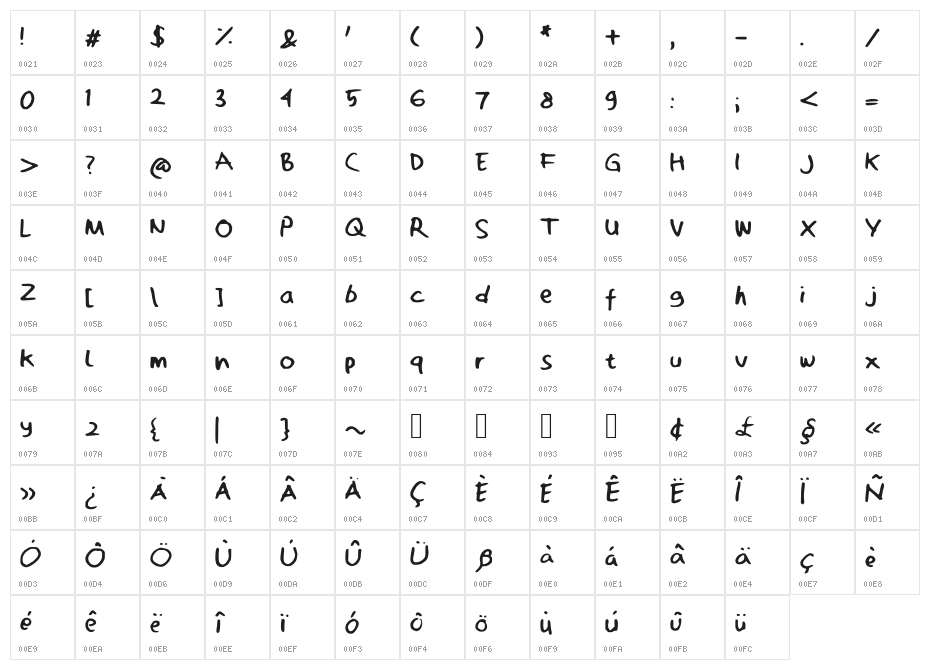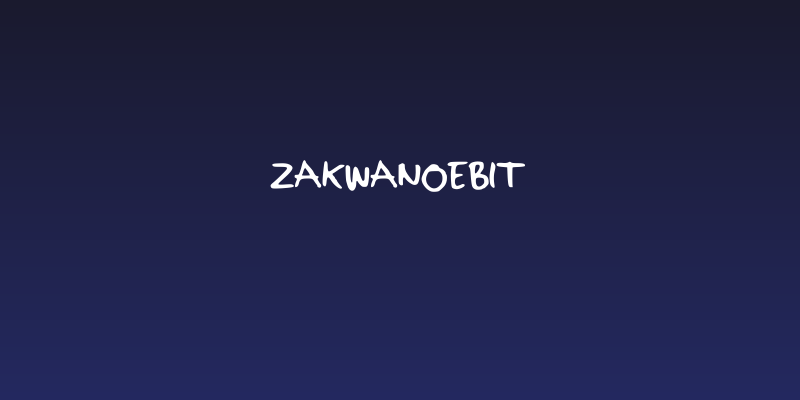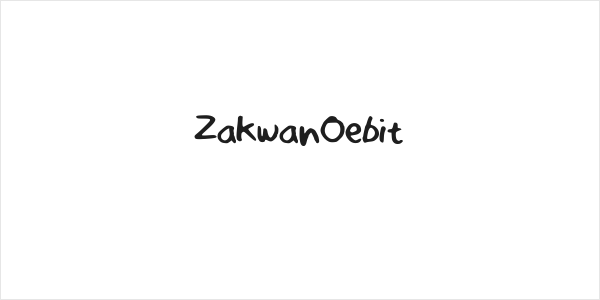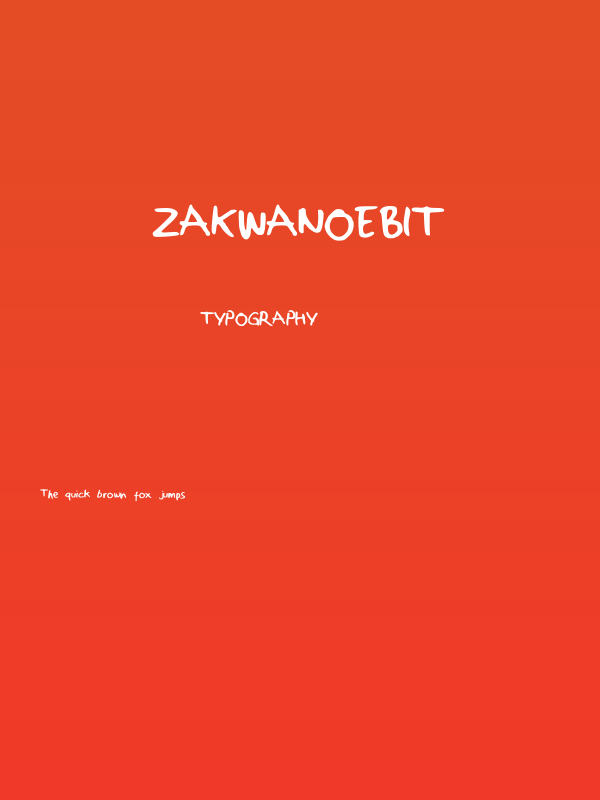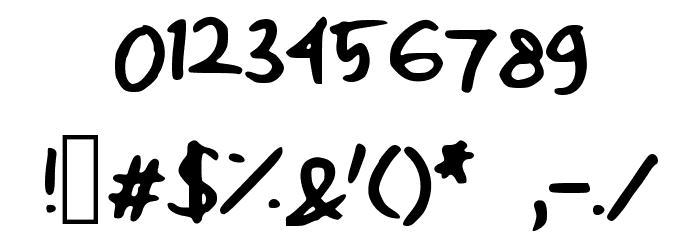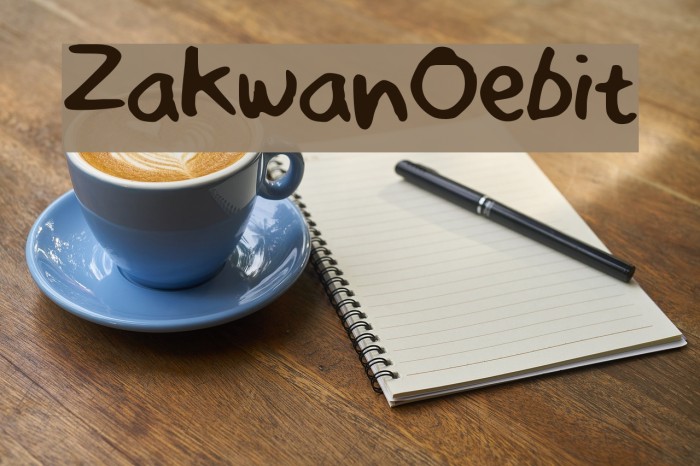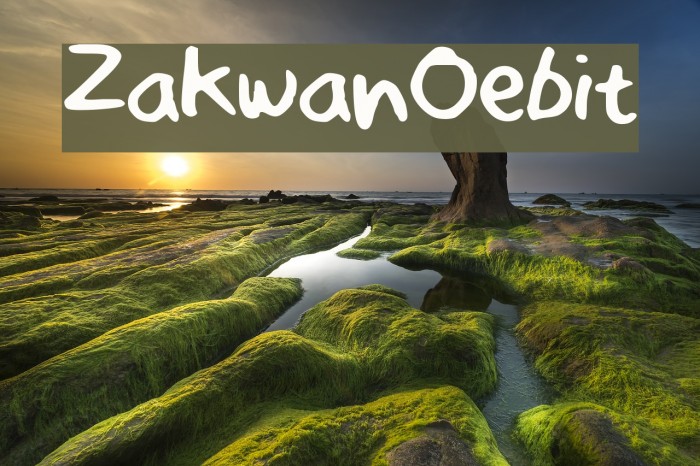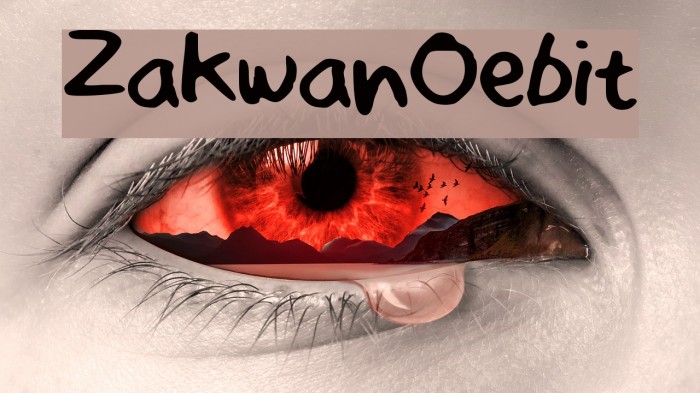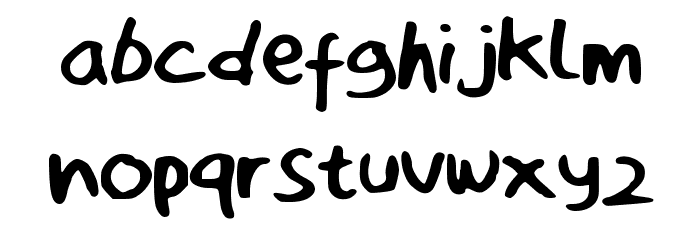
ZakwanOebit Font
ZakwanOebit Description
This font features a playful and casual handwritten style, characterized by its bold and rounded strokes. The letters are slightly irregular, giving it a personal and informal touch. The uppercase and lowercase letters maintain a consistent flow, while the numbers and special characters complement the overall design with their curvy and dynamic shapes. This font's organic feel makes it suitable for projects that require a friendly and approachable aesthetic.
| Proposed Projects | Ideal for greeting cards, children's books, casual branding, and social media graphics. |